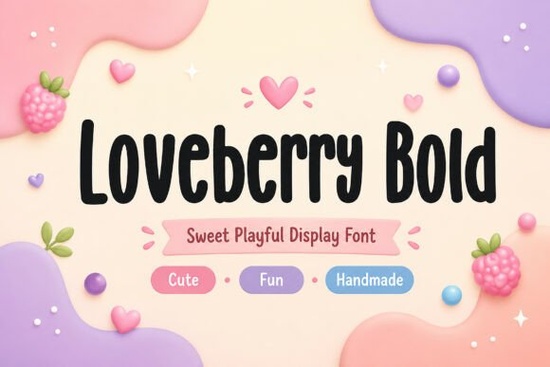
If you're looking for a font that feels warm, friendly, and full of personality, Loveberry Bold is a great choice. It’s not just another display font it’s designed with care, giving your projects a handmade charm that stands out. Whether you’re making birthday invites, children’s book illustrations, or playful packaging, this bold, rounded typeface brings joy to every design.
What makes Loveberry Bold special?
Unlike stiff or overly digital fonts, Loveberry Bold has a soft, organic feel. Its chunky strokes and gently curved edges give it a handcrafted look like someone drew it with love on a rainy afternoon. This isn’t a font meant to be ignored; it wants to be seen, felt, and remembered.
It works well in any project where warmth matters. Think baby shower cards, sticker designs, nursery wall art, or fun branding for kids’ toys and snacks. The playful tone fits naturally into content that’s meant to smile back at the viewer.
Best uses for Loveberry Bold in real-life projects
- Children’s books and storyboards: Perfect for character names or chapter titles that need a whimsical touch.
- Party invitations: Adds instant charm to birthday themes, especially for toddlers and preschoolers.
- Print-on-demand products: Ideal for T-shirts, mugs, and tote bags with cheerful messages like “I’m a Sweet Little Berry” or “Good Vibes Only.”
- Brand logos and packaging: Great for small businesses selling handmade treats, kids’ clothing, or eco-friendly toys.
- Social media graphics: Use it to highlight quotes, announcements, or seasonal posts with a light-hearted vibe.
You’ll find that its boldness helps it stand out without overwhelming the rest of your layout. It pairs well with simpler fonts try combining it with something clean like Bowlby One for balance.
How does it compare to other playful fonts?
While many display fonts lean toward either sharp precision or cartoonish exaggeration, Loveberry Bold strikes a middle ground. It’s not too childish, but still approachable. If you’ve used Enjoy Being or Summer Komika, you’ll notice similar vibes light, joyful, and expressive but Loveberry Bold leans more into that “handmade” aesthetic.
For contrast, try pairing it with a sleek sans-serif or a minimal script. Or mix it with Haydn if you want a modern twist on vintage charm. And if you’re aiming for something even bolder and more energetic, Helpful Action offers a different kind of punch great for headlines that demand attention.
Who should use Loveberry Bold?
This font is ideal for:
- Designers who want to add emotional warmth to their work
- Crafters making handmade gifts or printable decor
- Small business owners building a brand with a friendly face
- Content creators focused on positivity and creativity
- Anyone tired of generic fonts and ready for something unique
It’s not just about looks it’s about feeling. When people see your design, they should feel invited, not just informed.
Final tip: Test it before you commit
Before using any font in a final product, test it at different sizes and on various backgrounds. Loveberry Bold shines best on white or pastel tones, but it can also work on textured paper or light gradients. Always preview your text in context what looks cute on screen might not translate as clearly on print.